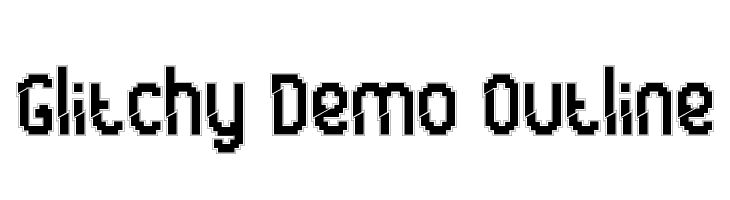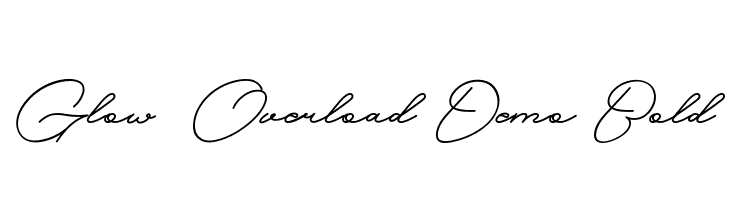
A pixelated, glitchy outline font with a retro digital aesthetic.
A playful and elegant handwritten script font with flowing lines and a cursive style.